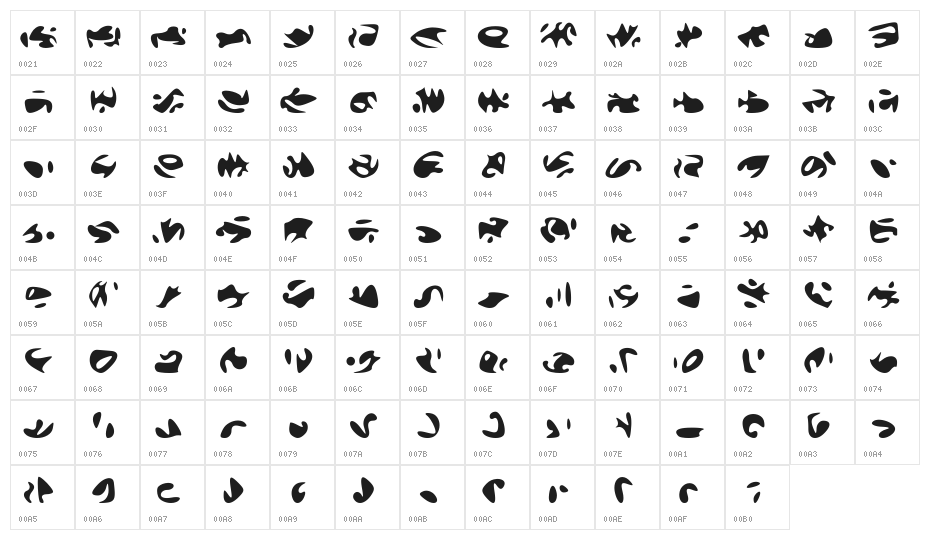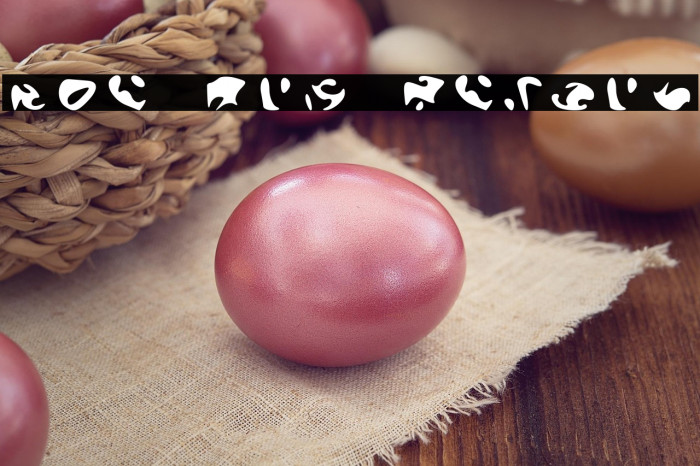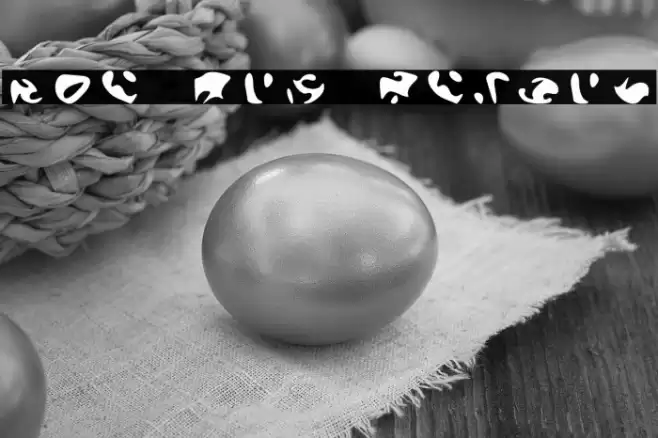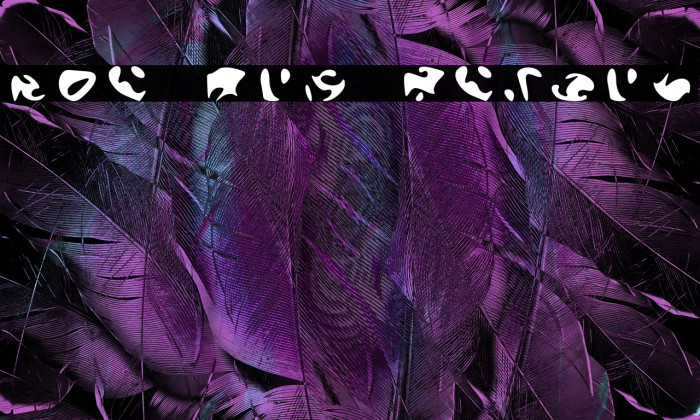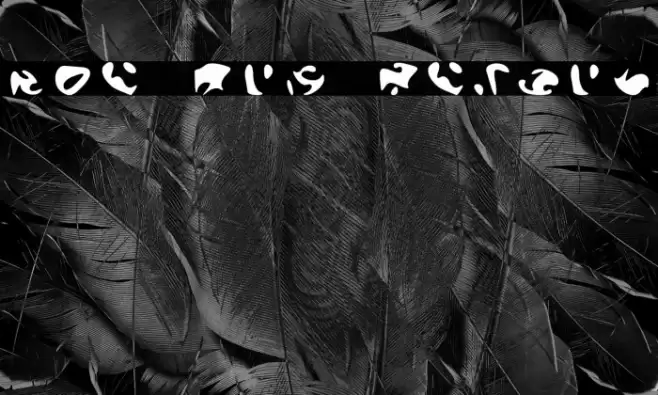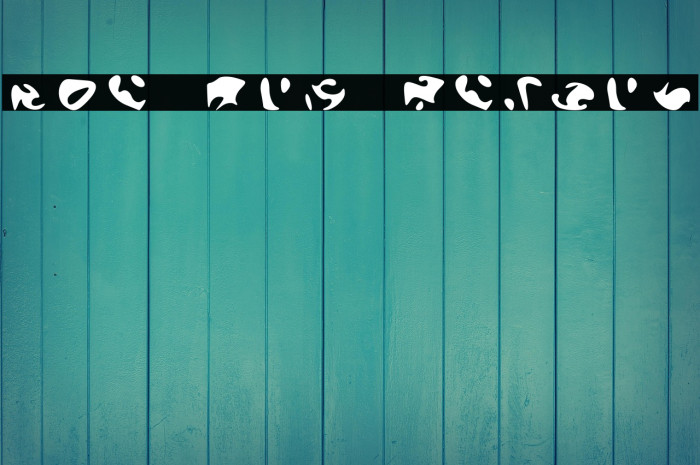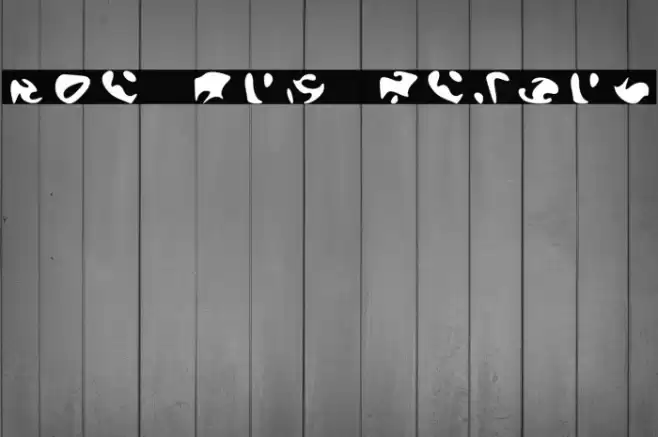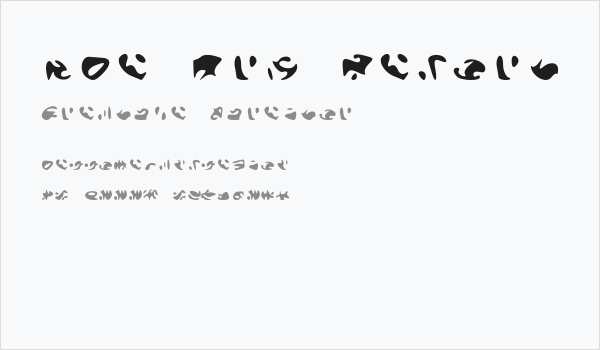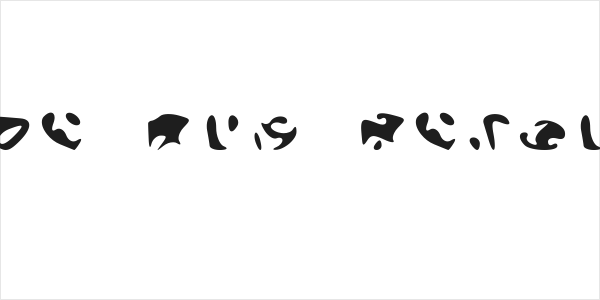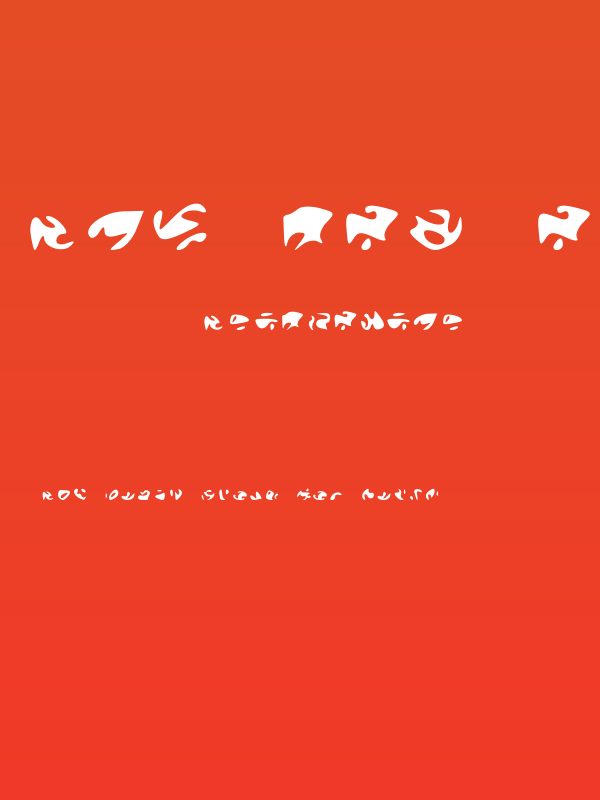
The Orb Report Font
The Orb Report Description
This font features an abstract and highly stylized design, with each character appearing as a unique, organic shape. The strokes are bold and irregular, creating a sense of movement and fluidity. The characters are not easily recognizable as traditional letters or numbers, giving the font an artistic and avant-garde feel. This font is likely intended for decorative purposes, where readability is secondary to visual impact. The overall appearance is reminiscent of abstract art, with each glyph resembling a brushstroke or ink blot.
| Overall Style | Abstract, Artistic |
| Use Case | Decorative elements, Art projects |
| Proposed Projects | Ideal for artistic projects, abstract designs, or as a decorative element in modern art pieces. |